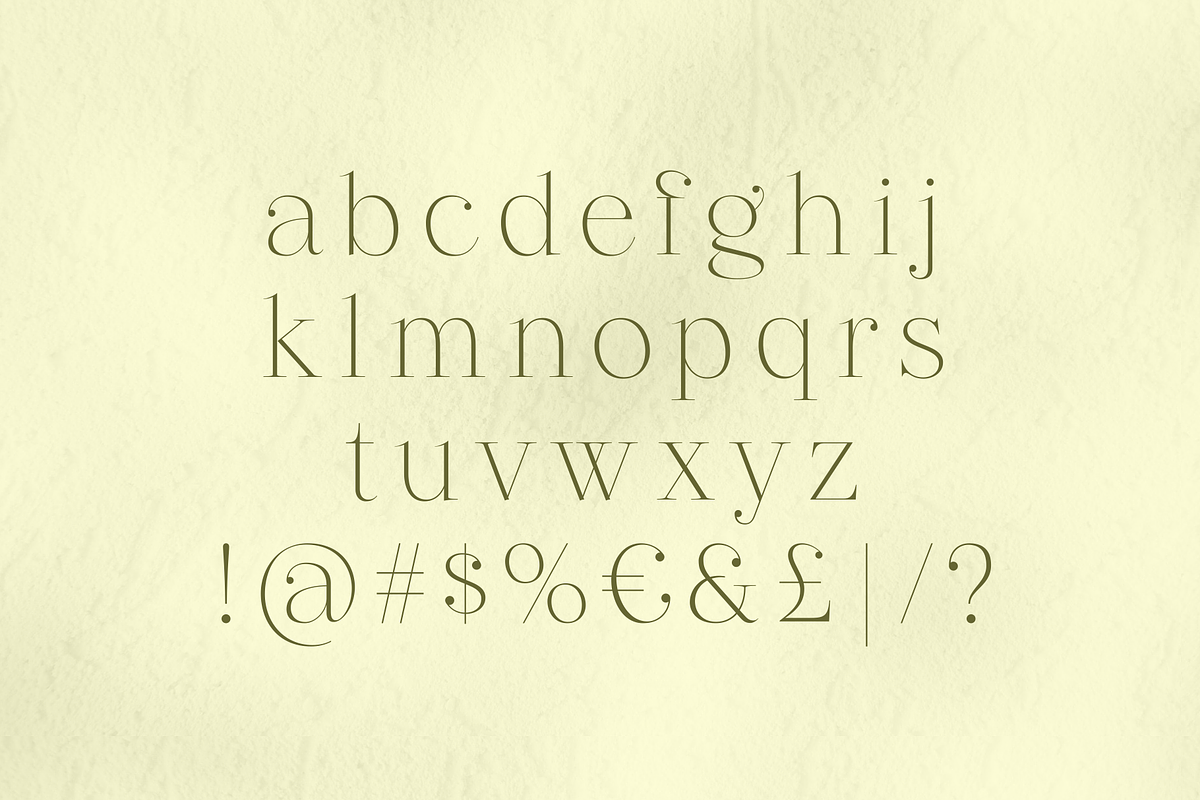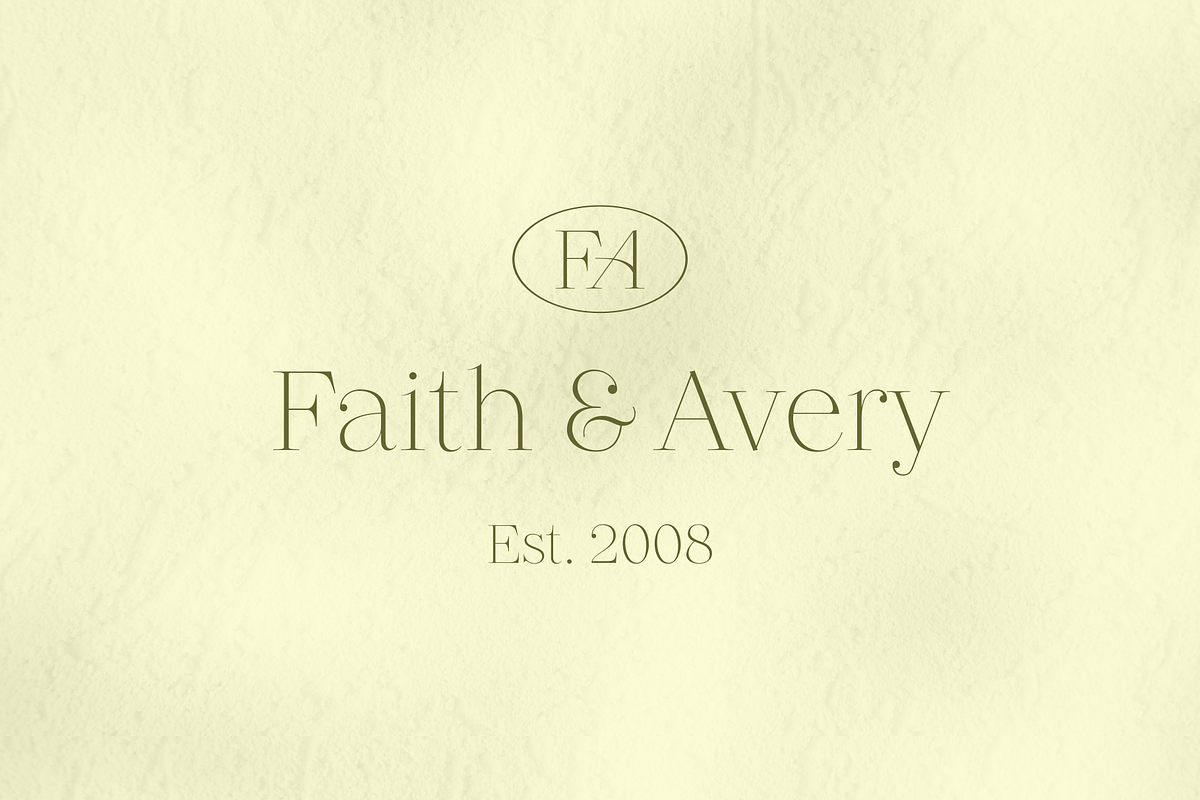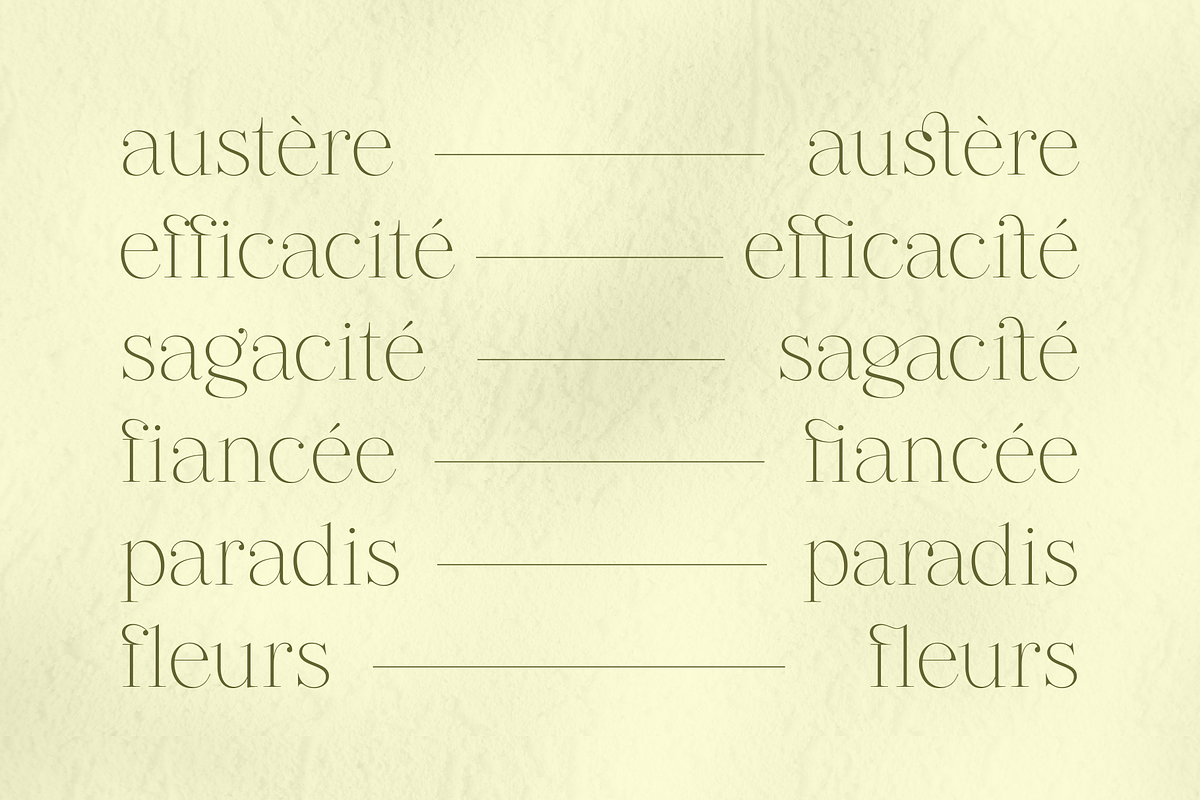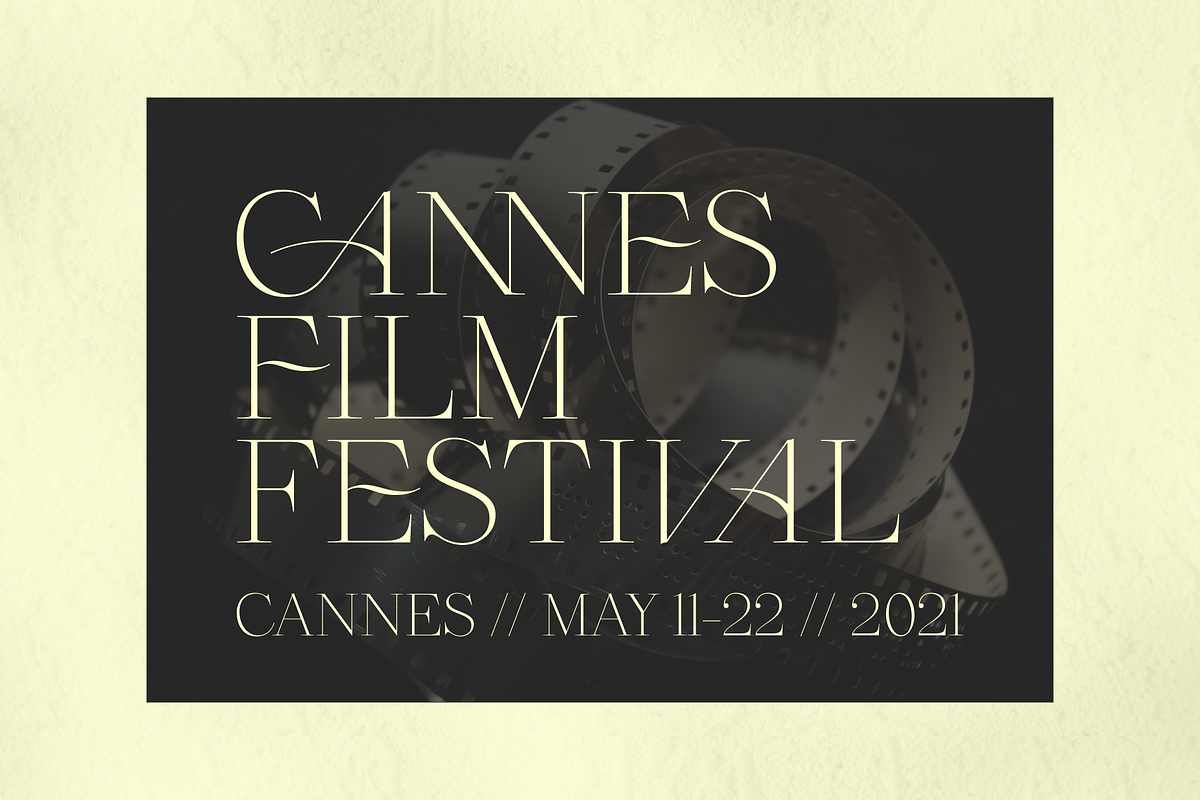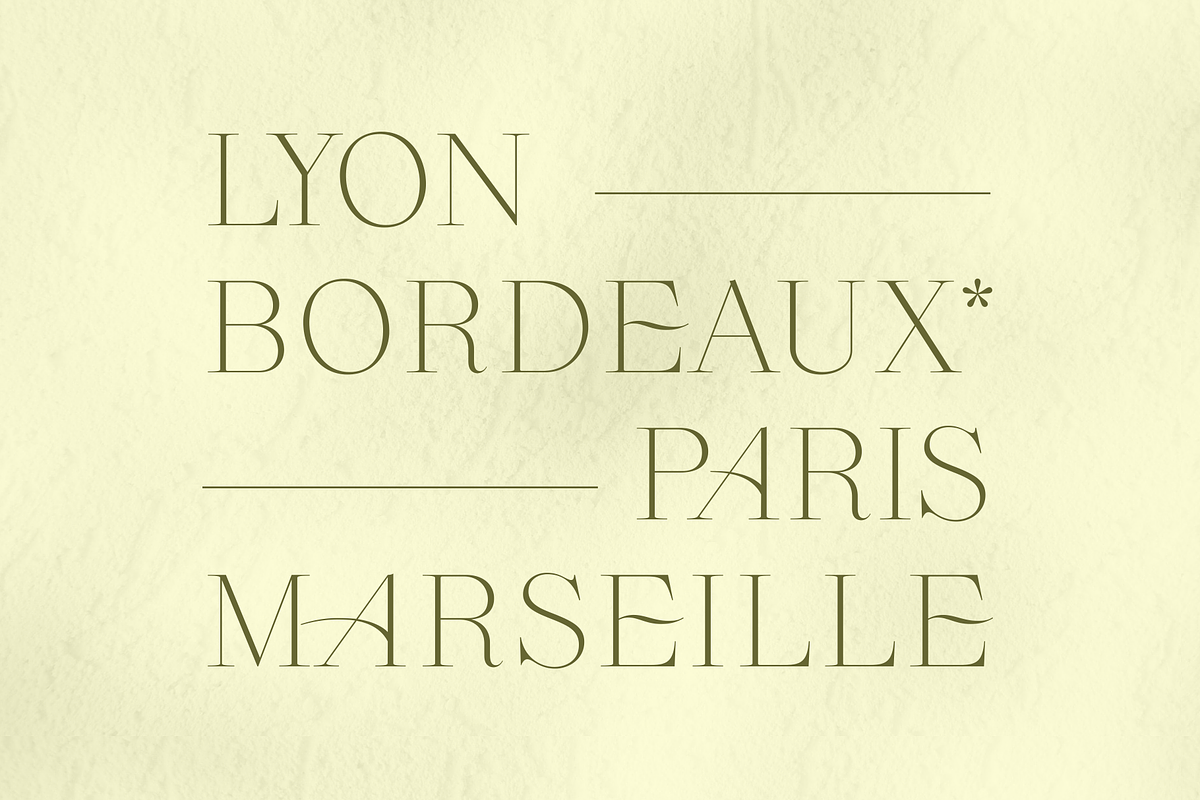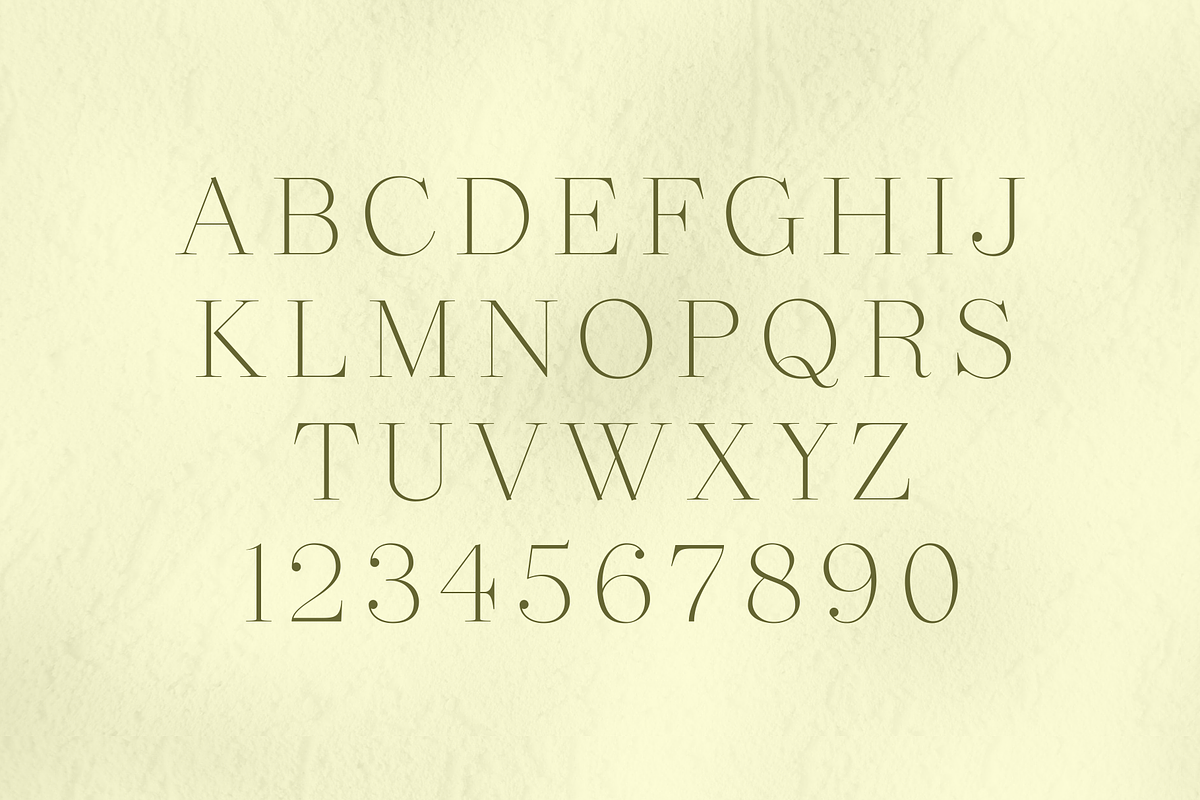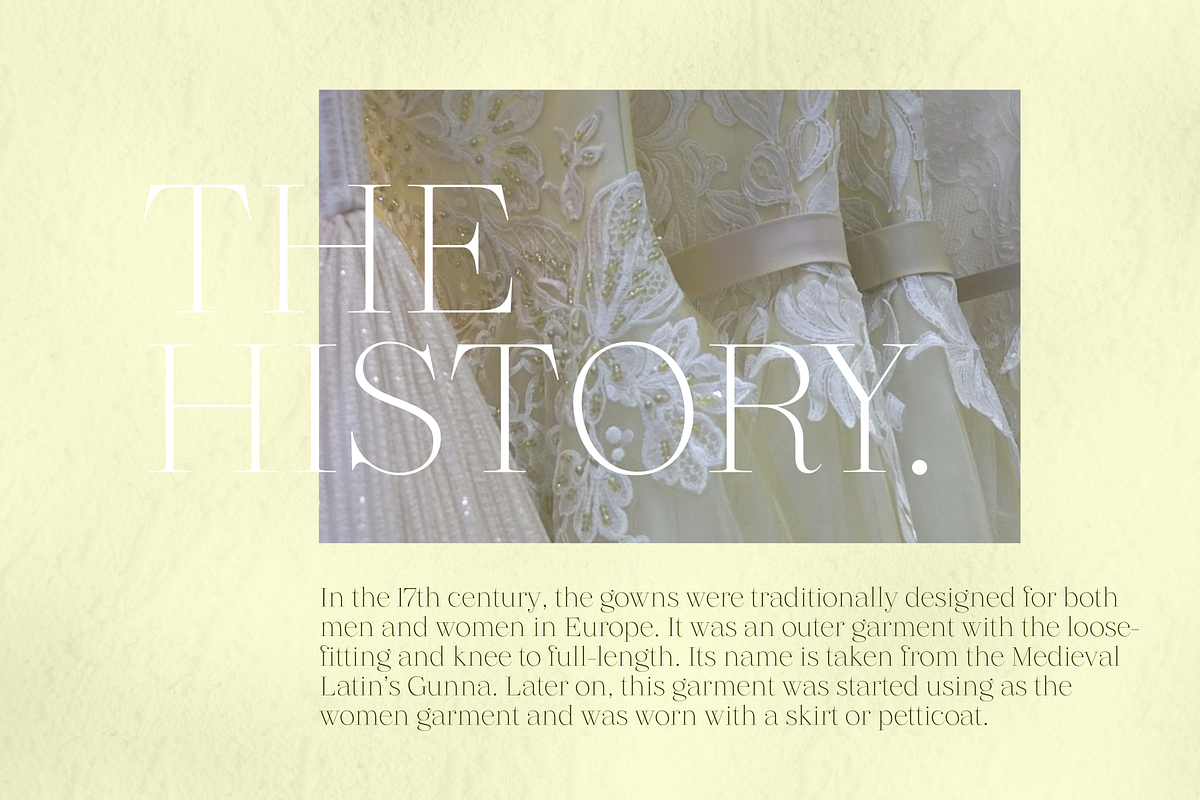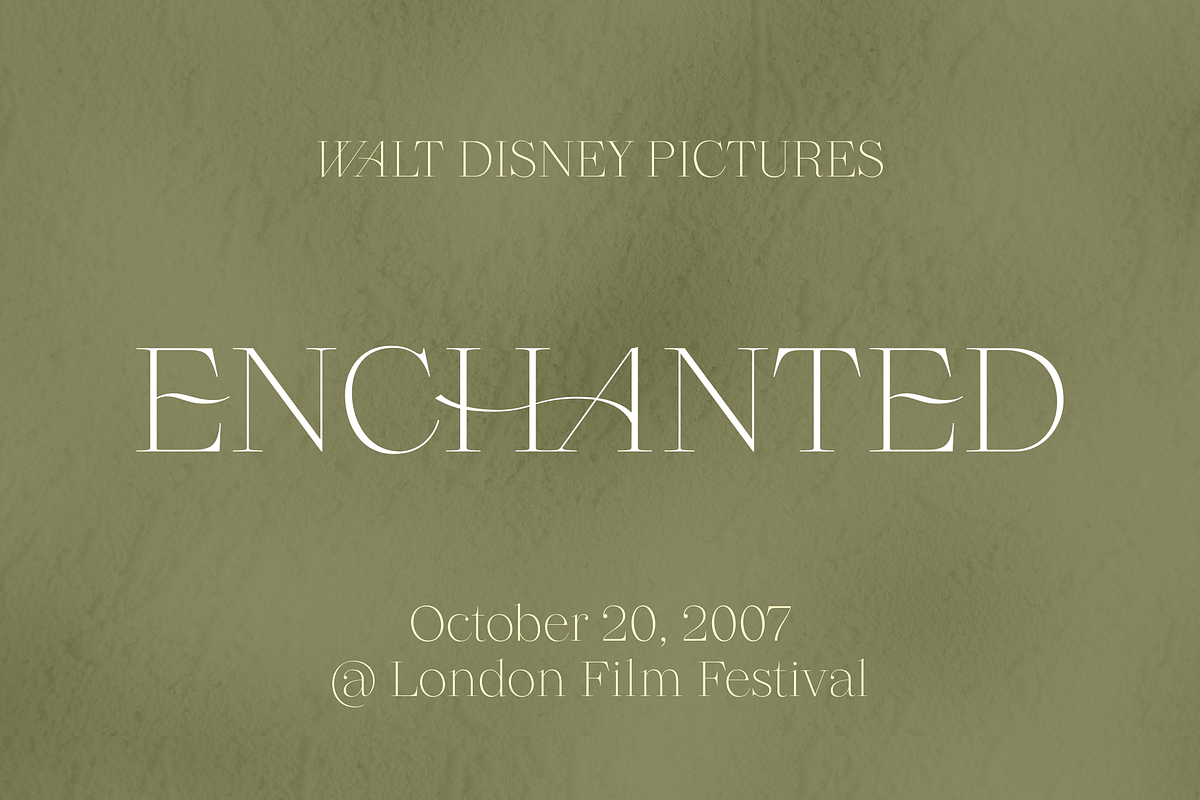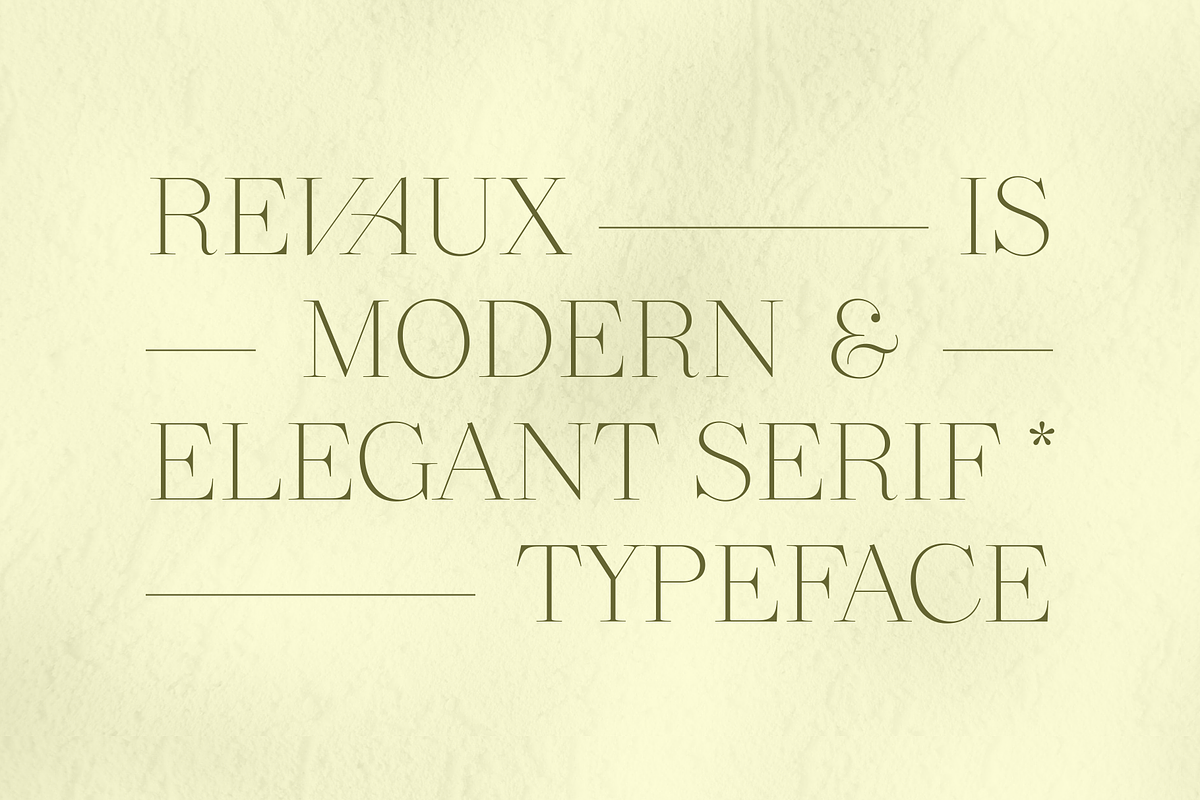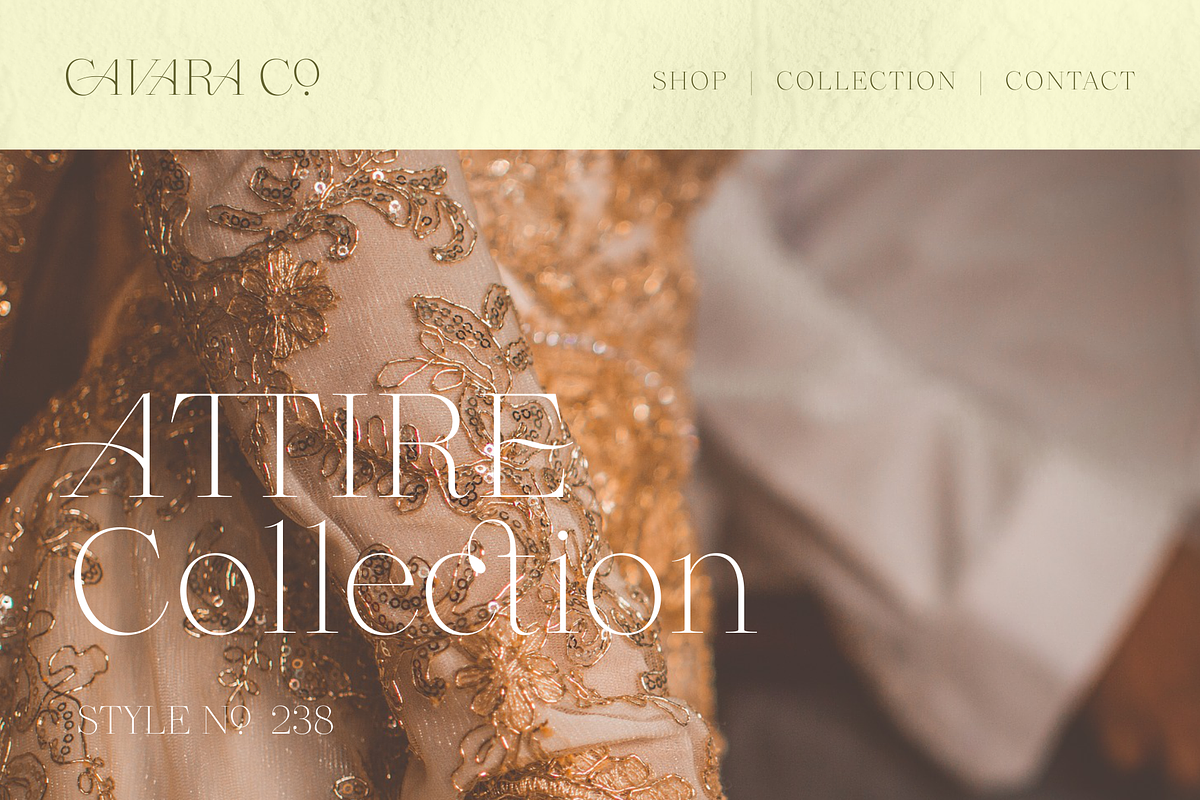
Revaux | Elegant Serif Typeface
Revaux is modern and elegant display serif designed with ball terminals. This font has 304 glyphs including alternates & ligatures and support 61 Latin languages.